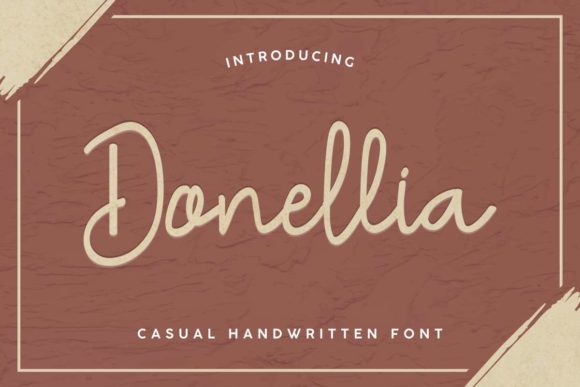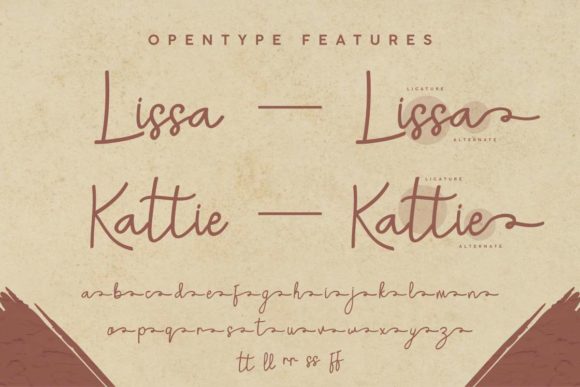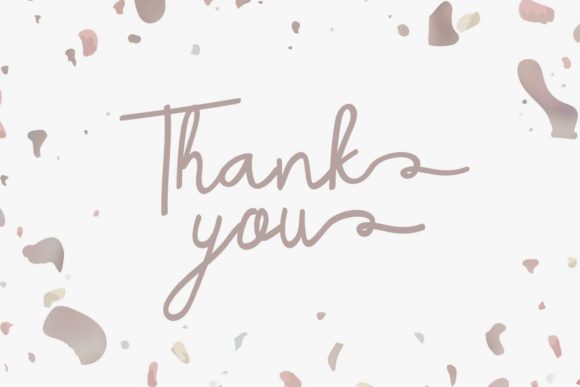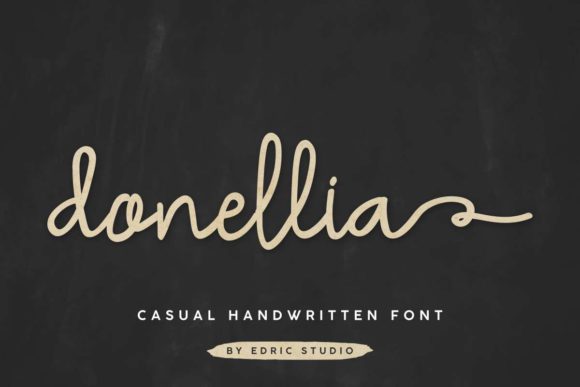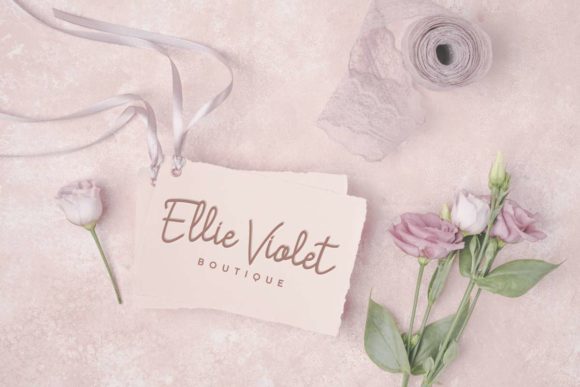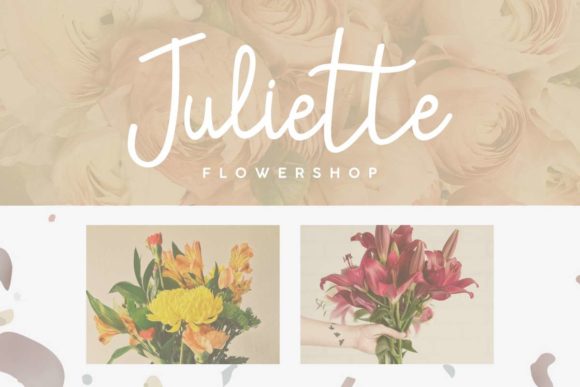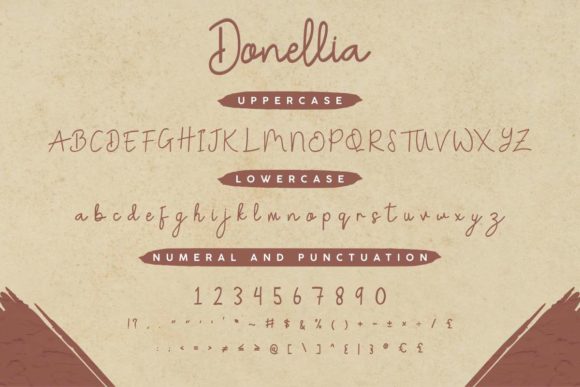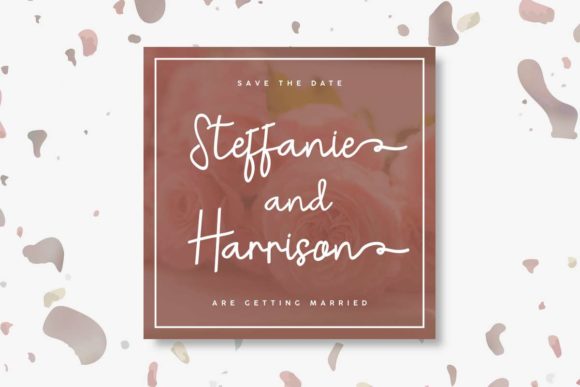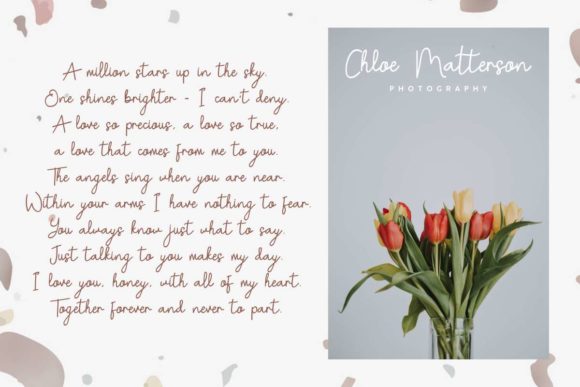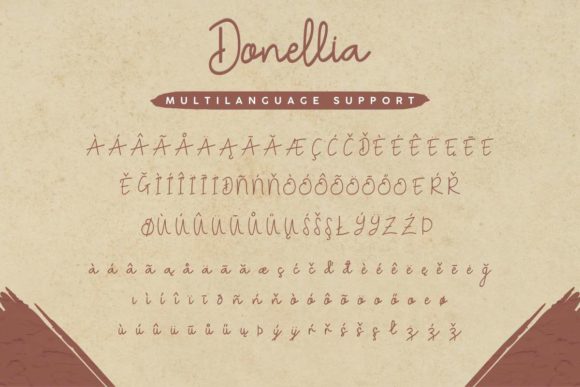
Donellia Font
Donellia is an exclusive signature handwriting script font with an elegant style. Use this gorgeous and unique font to bring any DIY project to life!